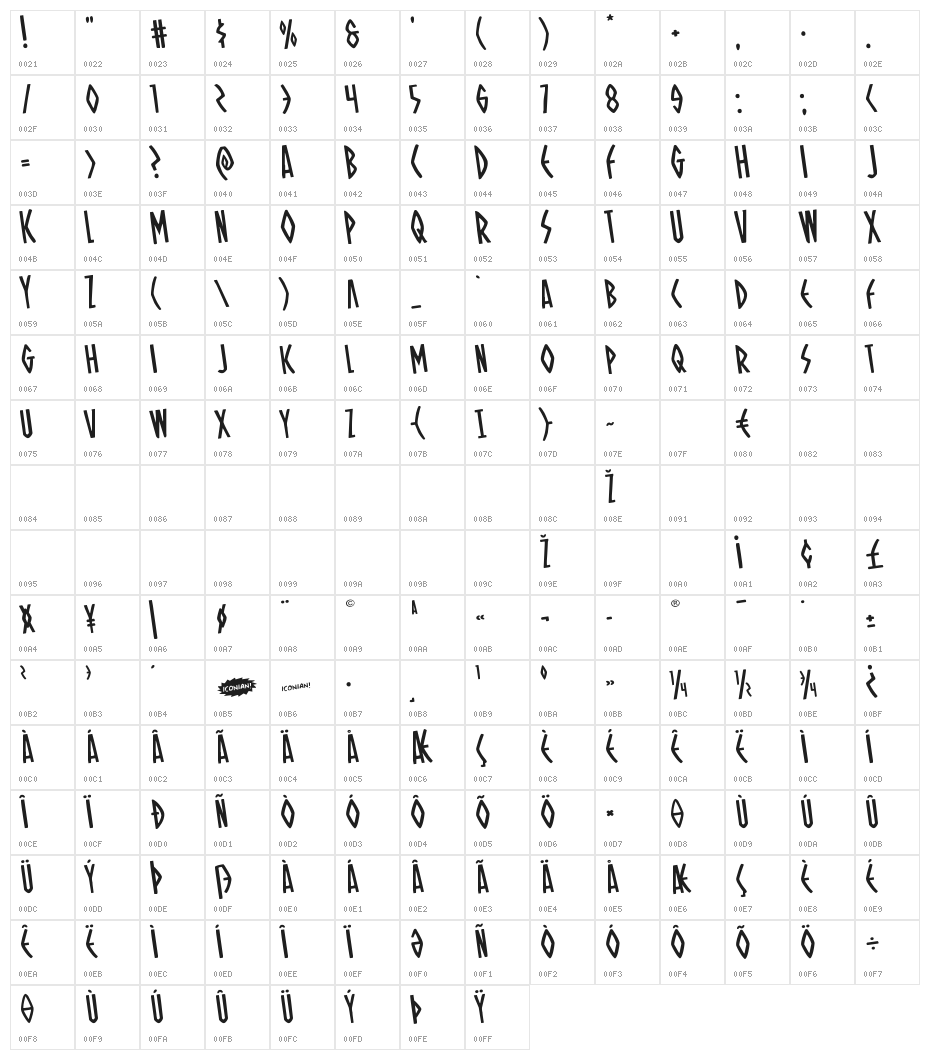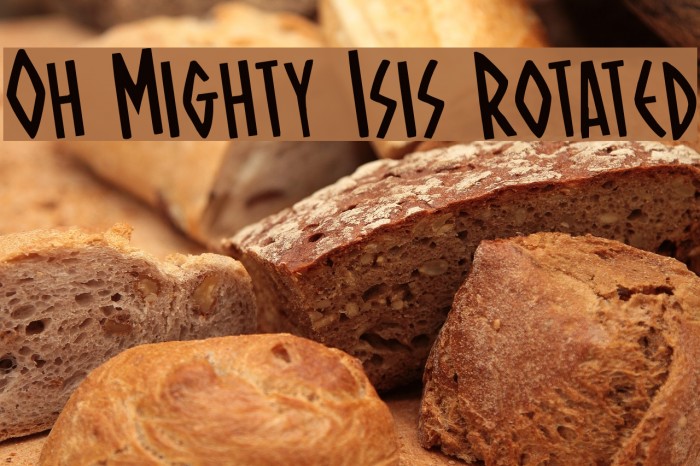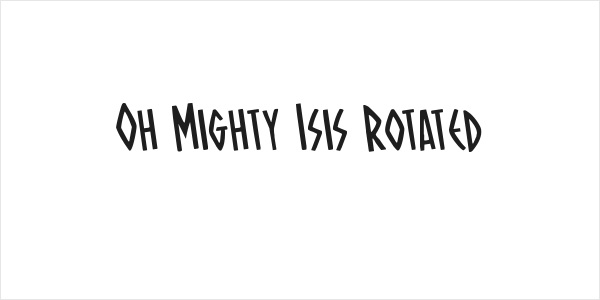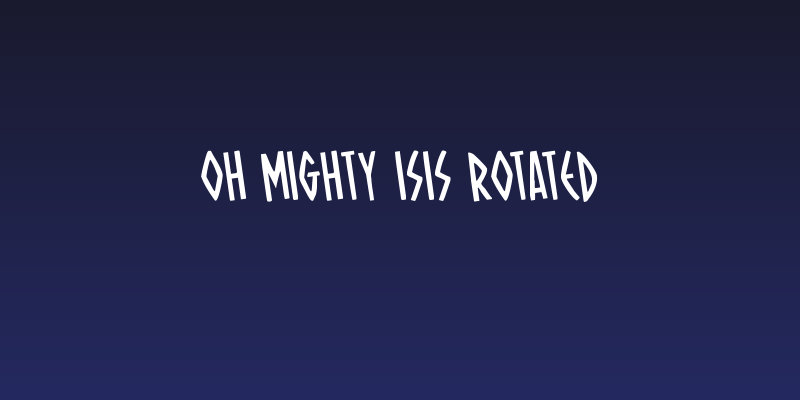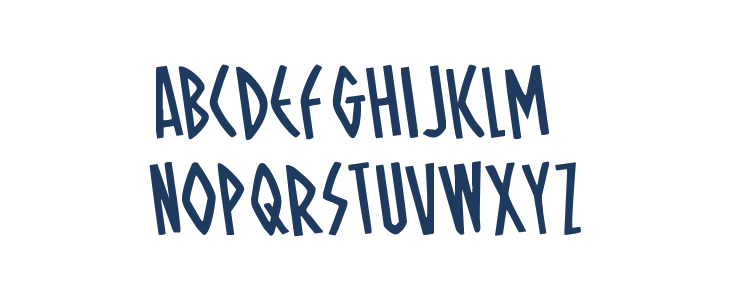
Oh Mighty Isis Rotated Font
Oh Mighty Isis Rotated Description
This font features a bold and playful design with exaggerated, uneven strokes that give it a dynamic and energetic appearance. The characters are slightly tilted and vary in width, adding to its whimsical and informal style. The uppercase and lowercase letters maintain a consistent height, while the numbers and special characters are crafted with the same quirky flair. The font's unique personality makes it stand out, perfect for creative projects that require a touch of fun and individuality.
| Use Case | Headlines, Posters, Creative Invitations |
| Proposed Projects | Ideal for children's books, playful branding, posters, and creative invitations. |